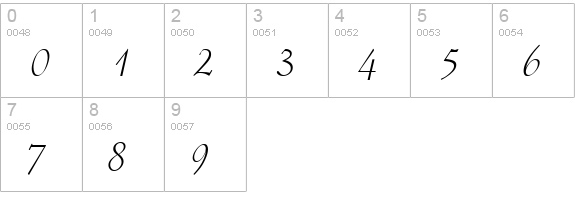
StempSchLigIta font is a sleek and modern typeface that exudes elegance and sophistication. Its stylish and unique design makes it perfect for a wide range of projects, from branding to editorial design. The font features a delicate balance of sharp lines and smooth curves, creating a harmonious and eye-catching look. What makes StempSchLigIta font even more appealing is that it is available for free download at FontsMarket.com. This means that you can easily access this stunning font and use it in your creative projects without any cost. Whether you are a professional designer or a hobbyist looking to add a touch of class to your work, StempSchLigIta font is a fantastic choice that won't break the bank. Download it today and elevate your designs with this elegant and versatile typeface.